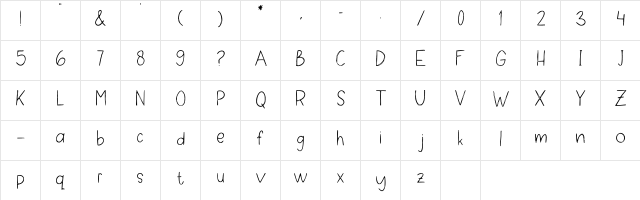
School Build Regular
Design Context for School Build Typeface
School Build is a composed and adaptable typeface that performs quietly and consistently across a wide range of design contexts.